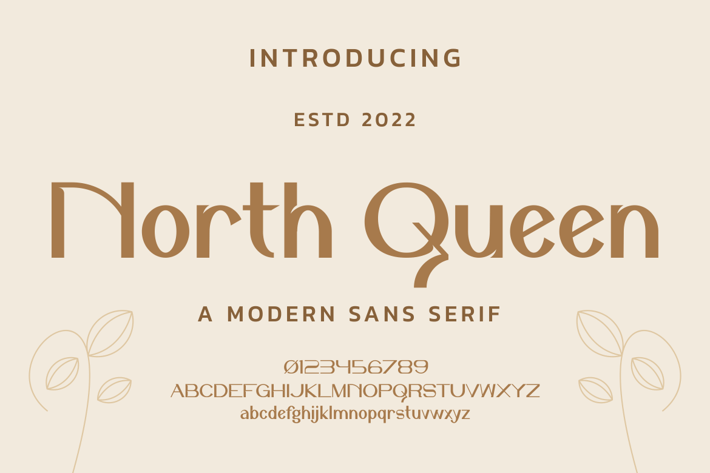
North Queen Font
Introducing our new product North Queen Font - Modern Font
North Queen Font - Modern Font is a bold and authentic display font. The font is suitable for any branding project like logo, t-shirt printing, esport, and many more. outstanding in a wide range of contexts.